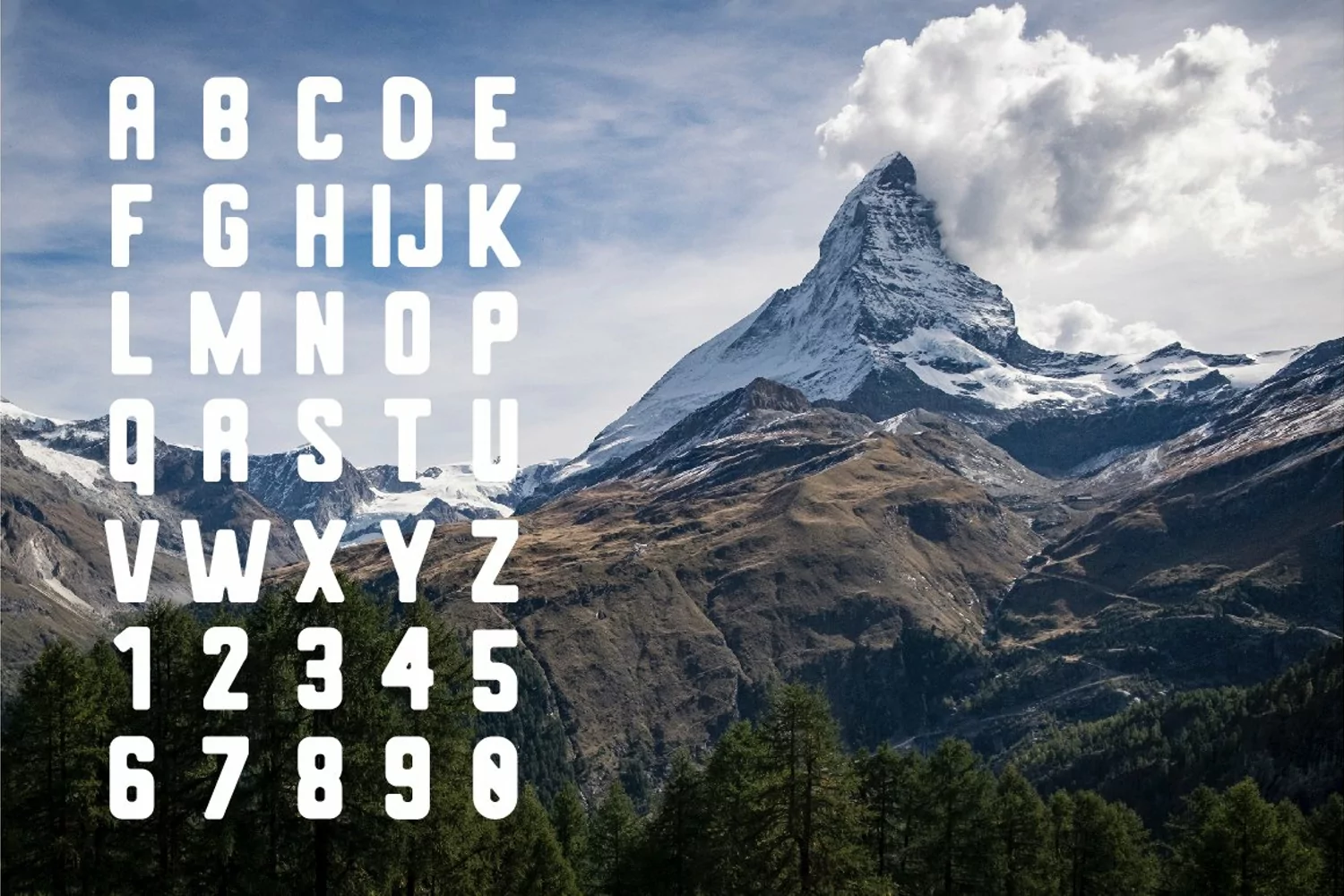
Halken is a bold sans serif font with big impact. Available in three different formats including: Regular, Grunge and Outline. With different style options to choose from Halken font is a great way to create outstanding titles, posters, headlines, and even works well for tshirt designs and other similar apparel projects. Halken is a wonderfully versatile font!